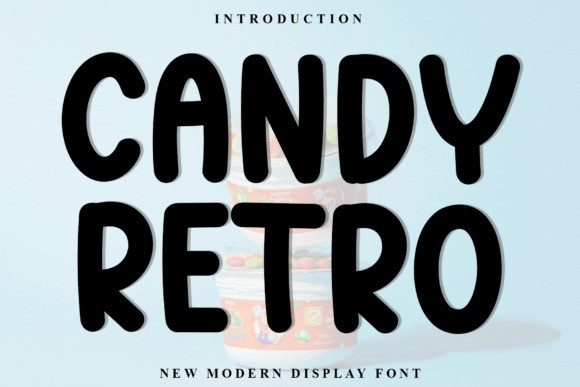
Candy Retro Font
Candy Retro Font is a sweet and friendly serif font. Its natural and unique style makes it incredibly fitting to a large pool of designs. The only limit is your imagination!